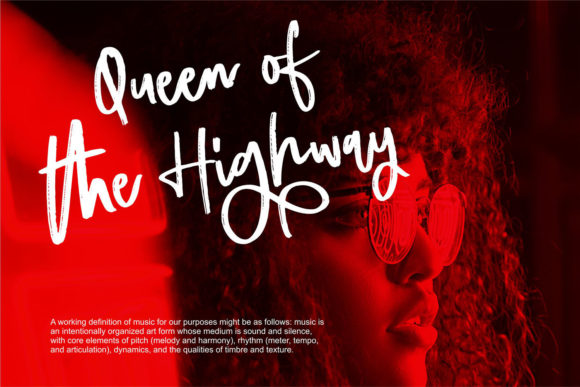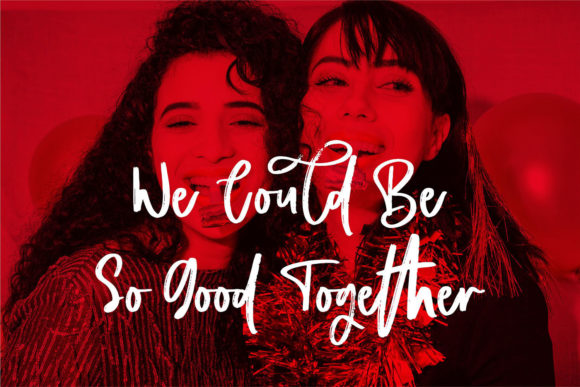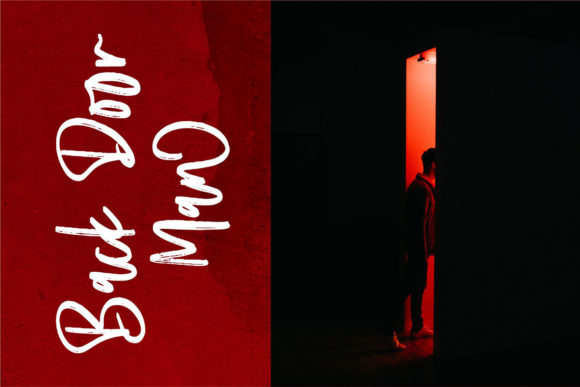
Introduction to Matethi Font
Matethi is a modern, whimsical and relaxed paint brushed script font.
Its authentic handwritten look and feel will add a personal and realistic feel to your designs Fall in love with this font’s incredibly versatile style and use it to create spectacular designs.
Why Choose Matethi Font?
Matethi Font offers exceptional quality and versatility, making it a valuable addition to your design toolkit. Whether you’re creating for personal projects or commercial use, Matethi Font delivers professional results.